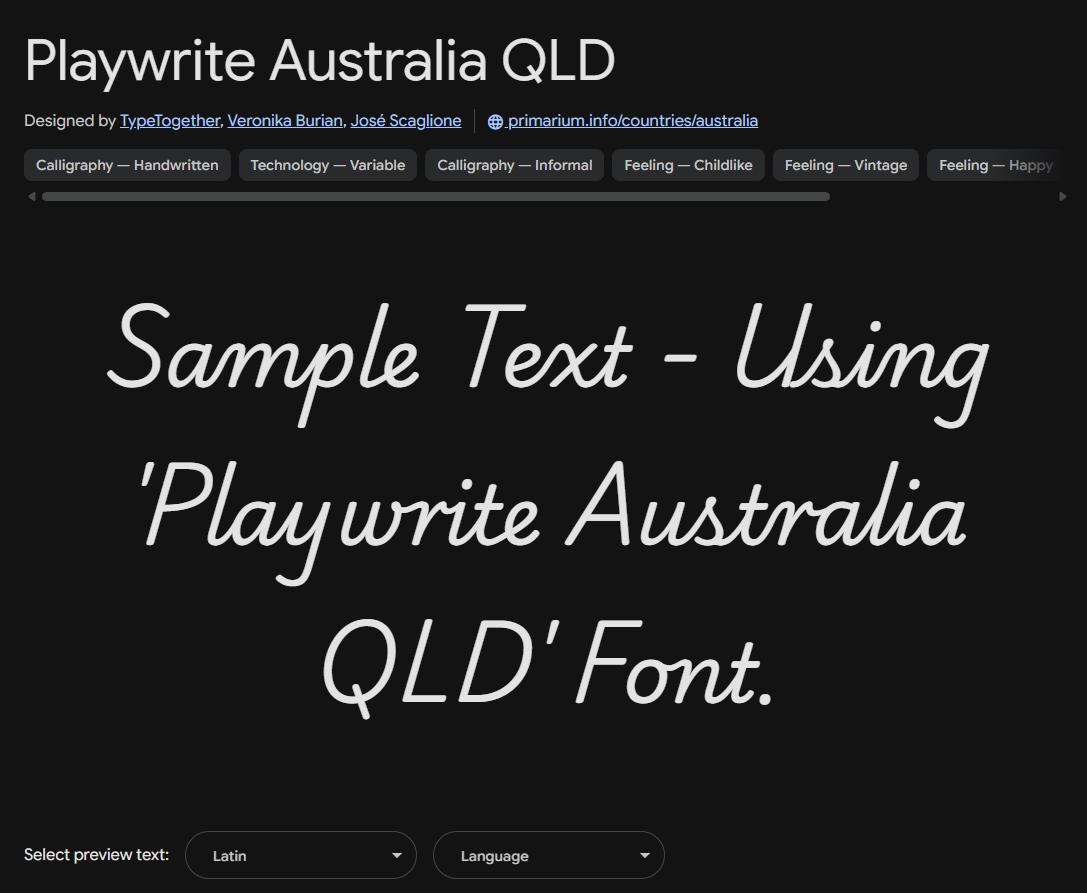
Playwrite Australia QLD, a specialized variable font developed by the TypeTogether foundry under the direction of Veronika Burian and José Scaglione, serves as a sophisticated digital bridge between traditional Queensland pedagogical handwriting standards and contemporary web typography. Engineered with a single weight axis for fluid interpolation, this typeface utilizes advanced OpenType features to replicate the specific joins and letterform constructions mandated by the QLD Department of Education, ensuring that the transition from physical penmanship to digital literacy remains pedagogically consistent. By synthesizing variable font technology with localized educational requirements, the design team has created a semantically rich tool that optimizes legibility for early learners while maintaining the technical rigor required for cross-platform rendering and accessible instructional design.
Playwrite Australia QLD represents a sophisticated fusion of pedagogical heritage and modern interpolation technology, serving as a variable font that digitizes the specific primary school cursive standards of Queensland. By leveraging variable axes to bridge the gap between structured informal calligraphy and a rugged, tactile aesthetic, this typeface captures a uniquely vintage yet happy atmosphere reminiscent of mid-century classroom exercises. Its design philosophy prioritizes a playful, childlike rhythm through organic glyph variations that simulate the pressure and flow of a handheld pen, transforming a standardized educational tool into a versatile asset for emotive, handwritten storytelling. This digital translation of regional penmanship not only preserves cultural typographic identity but also utilizes the fluidity of variable technology to maintain a playful, high-contrast legibility that feels both nostalgic and contemporary.
While Playwrite Australia QLD, meticulously engineered by TypeTogether to adhere to the specific pedagogical handwriting standards of the Queensland Department of Education, serves as a vital tool for primary literacy, its inherent cursivity and fluid joinery render it fundamentally unsuitable for high-stakes industrial applications, legal documentation, or mission-critical safety labeling. The typeface's reliance on continuous-line stroke paths and looped terminals-designed to simulate developmental penmanship-introduces significant legibility risks in environments requiring rapid-fire information processing, such as aerospace telemetry or pharmaceutical data tables. Because the variable axis primarily modulates weight rather than structural formality, the font's informal glyphic architecture fails to provide the necessary optical neutrality required for corporate financial reporting or technical schematics, where the complex ligatures of a school-based script would compromise clarity and professional authority in favor of a nostalgic, instructional aesthetic that lacks the austere distinctness of a traditional sans-serif or neo-grotesque.
For classroom displays, a minimum size of 36 to 48 points is generally recommended to ensure visibility from the back of the room. Based on the 20/20 visual acuity standard, maintaining a physical x-height of at least 15mm prevents legibility degradation caused by optical thinning at distance.
The font utilizes advanced OpenType features to automate contextual alternates, ensuring fluid transitions between individual characters. By leveraging the 'calt' feature tag, the typeface dynamically maps glyph entry and exit points to maintain stroke continuity across variable kerning pairs.
Playwrite Australia QLD is highly suitable for digital interfaces, offering clear letterform recognition for students learning script on touchscreens. The font's variable axes allow for precise weight adjustments that counteract pixel bleeding on low-PPI displays, optimizing the rasterization process for younger learners.
Sans-serif typefaces like Montserrat or Helvetica pair effectively by providing a structural contrast to the flowing cursive strokes. Utilizing a high-contrast pairing with a geometric sans-serif optimizes the hierarchy by separating decorative headers from functional body text through distinct stroke modulation.
A generous x-height in this font necessitates increased leading to prevent ascenders and descenders from overlapping in dense text blocks. Technical analysis of the vertical metrics reveals that a line-height ratio of 1.5 is the minimum threshold for preserving the integrity of the cursive loops against baseline-to-baseline encroachment.
This font performs well on high-contrast signage when the stroke weight is bold enough to resist the visual "halo effect" of bright backgrounds. Implementing a luminance contrast ratio of at least 7:1 ensures that the specific QLD glyph terminals remain distinct under varying ambient light conditions.
Since Playwrite Australia QLD is delivered as a variable font, users can finely tune the weight to highlight specific instructional strokes for teaching purposes. Manipulating the 'wght' axis allows designers to increase the optical weight of downstrokes, simulating the pressure-sensitive feedback of a traditional 2B pencil.
While excellent for handwriting instruction, it is less effective for long-form reading due to the increased cognitive load required to process joined characters. Eye-tracking data suggests that the rhythmic complexity of cursive ligatures can reduce reading speed by up to 15% compared to standardized humanist sans-serifs.
The QLD variant specifically follows the Queensland Department of Education standards, featuring distinct slope angles and entry/exit stroke shapes. Geometric analysis shows that the QLD-specific "k" and "f" glyphs utilize a 7-degree slant axis that diverges significantly from the more upright verticality found in the NSW Foundation style.
Dark charcoal text on a soft cream or off-white background reduces visual fatigue and enhances the clarity of the cursive paths. Research into chromatic aberration indicates that high-frequency blue-light backgrounds should be avoided to prevent the blurring of the thin joining strokes on 4K digital displays.